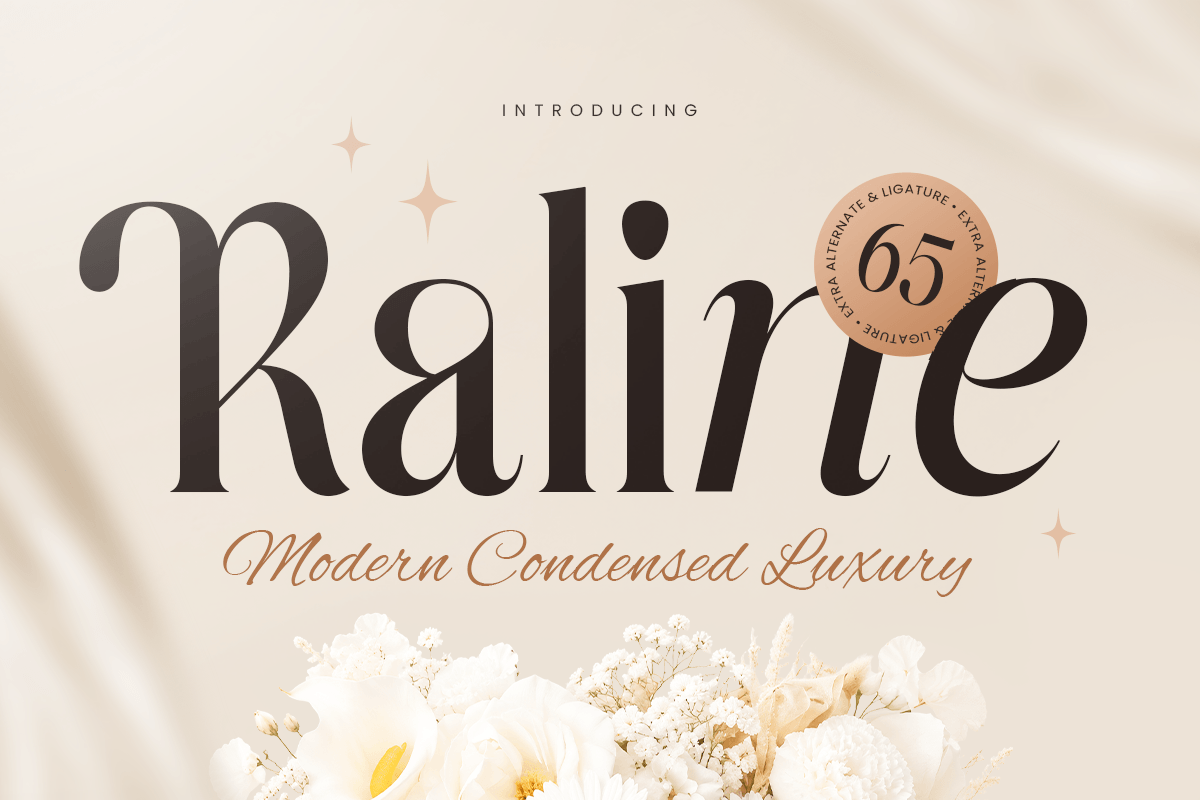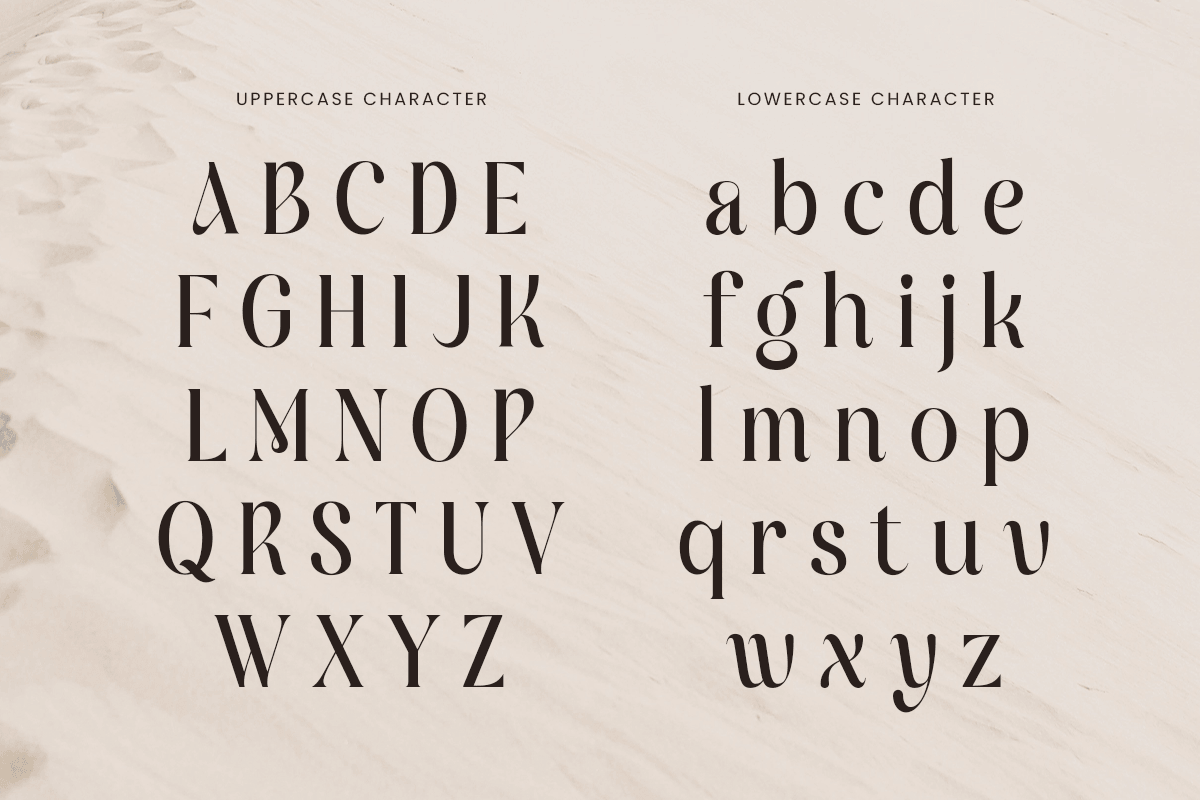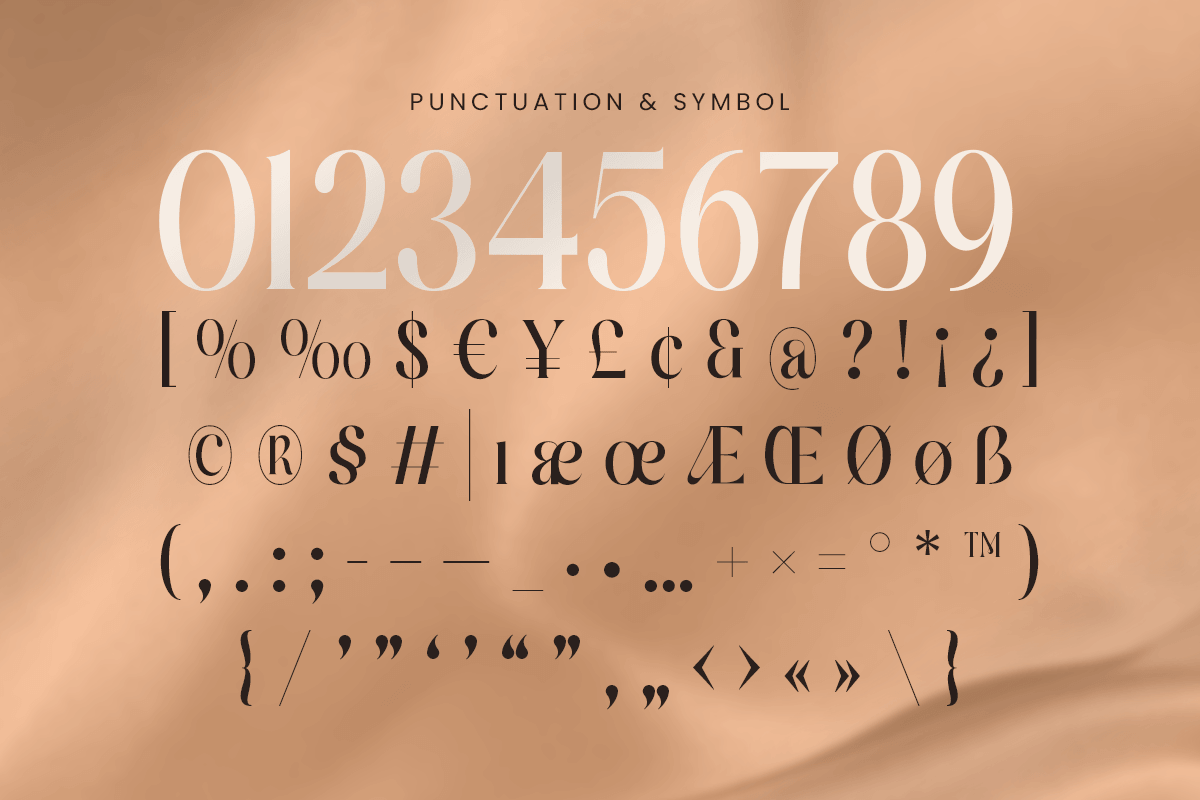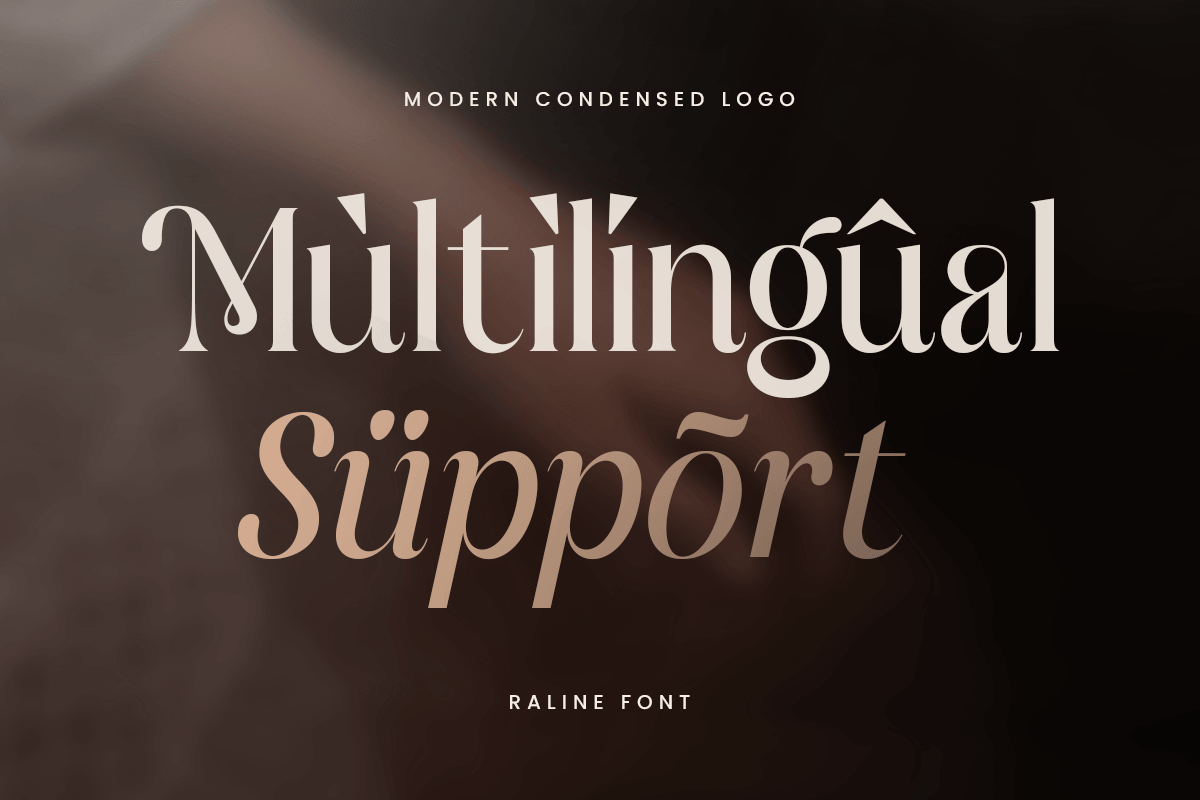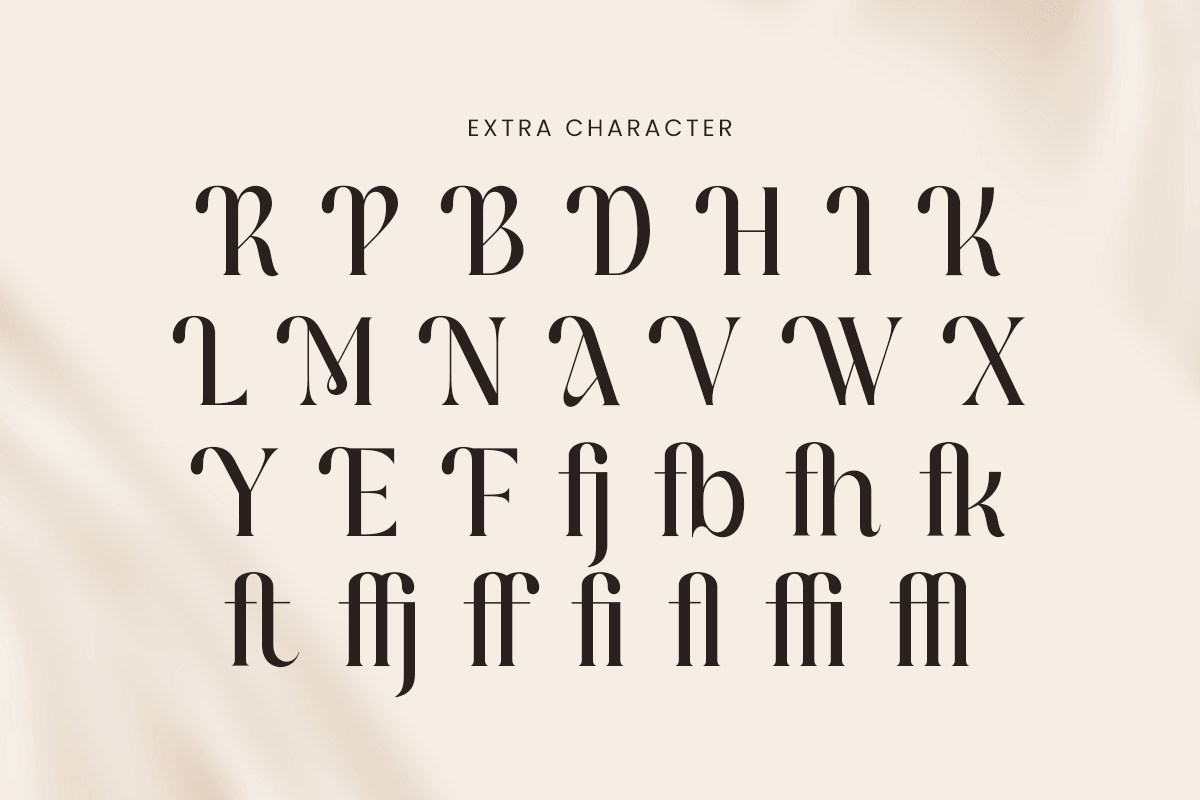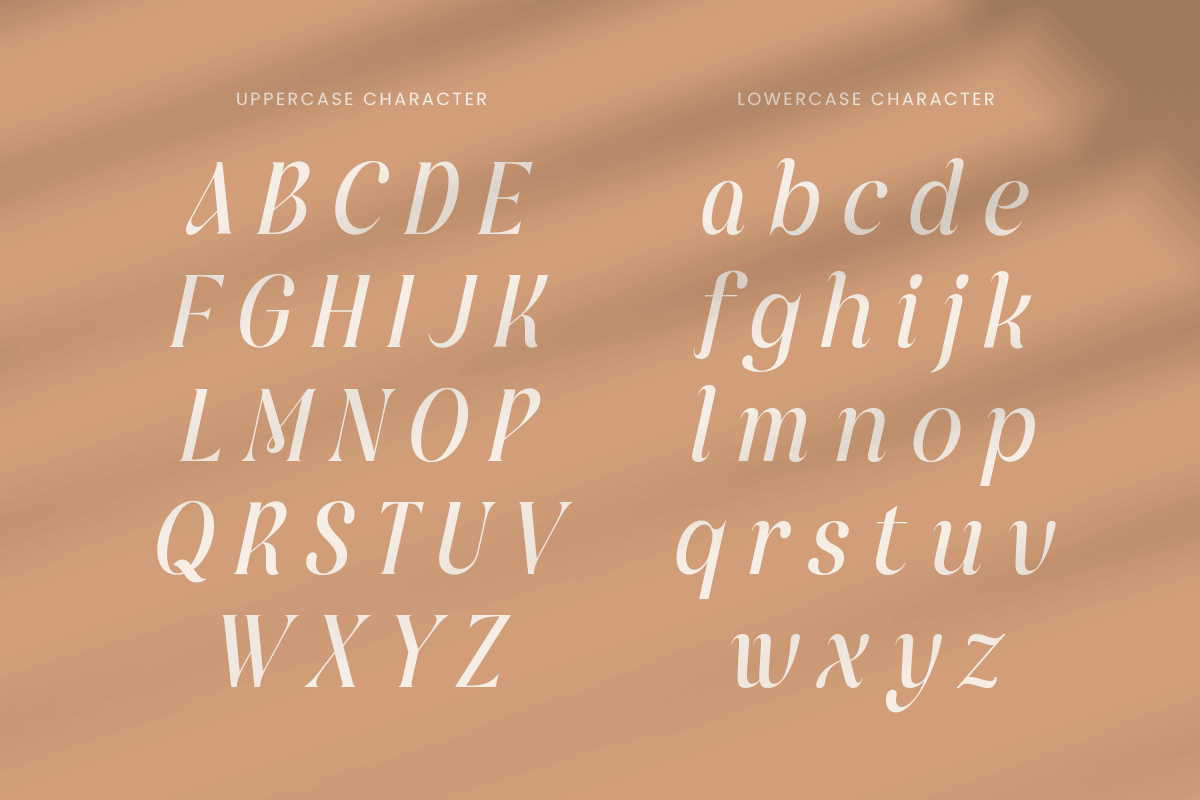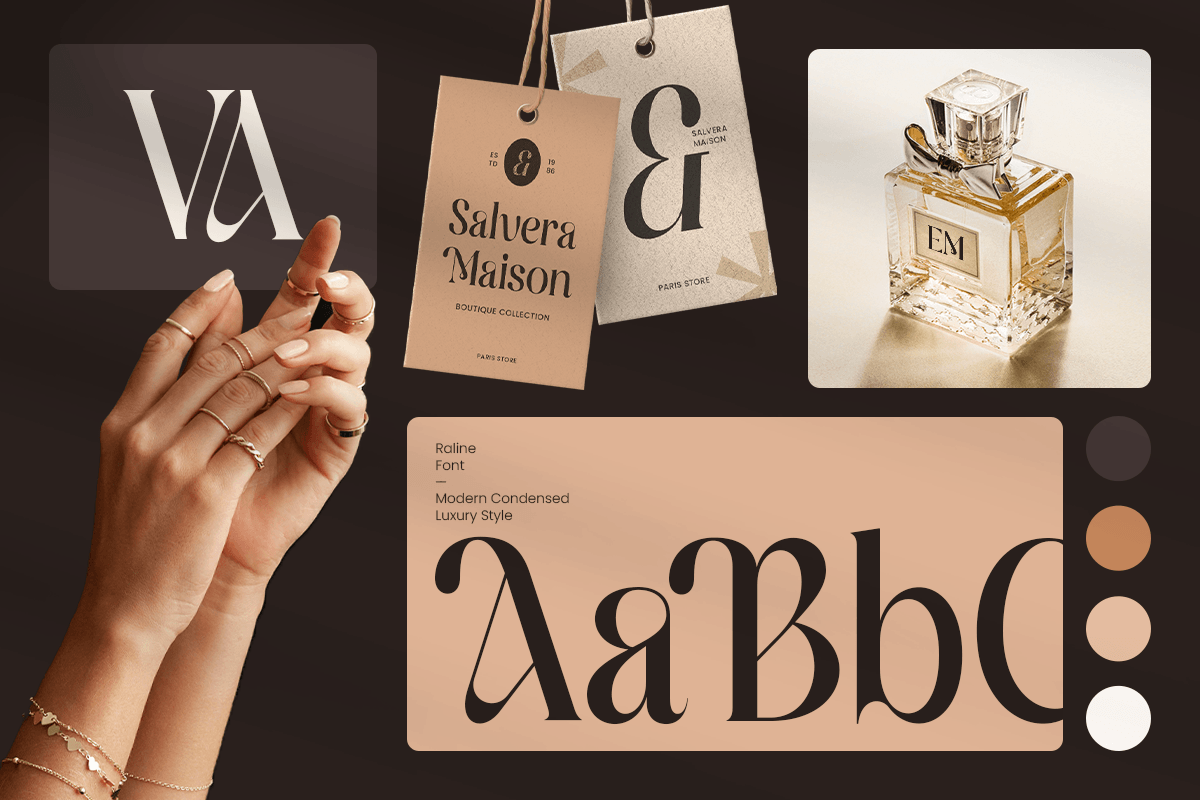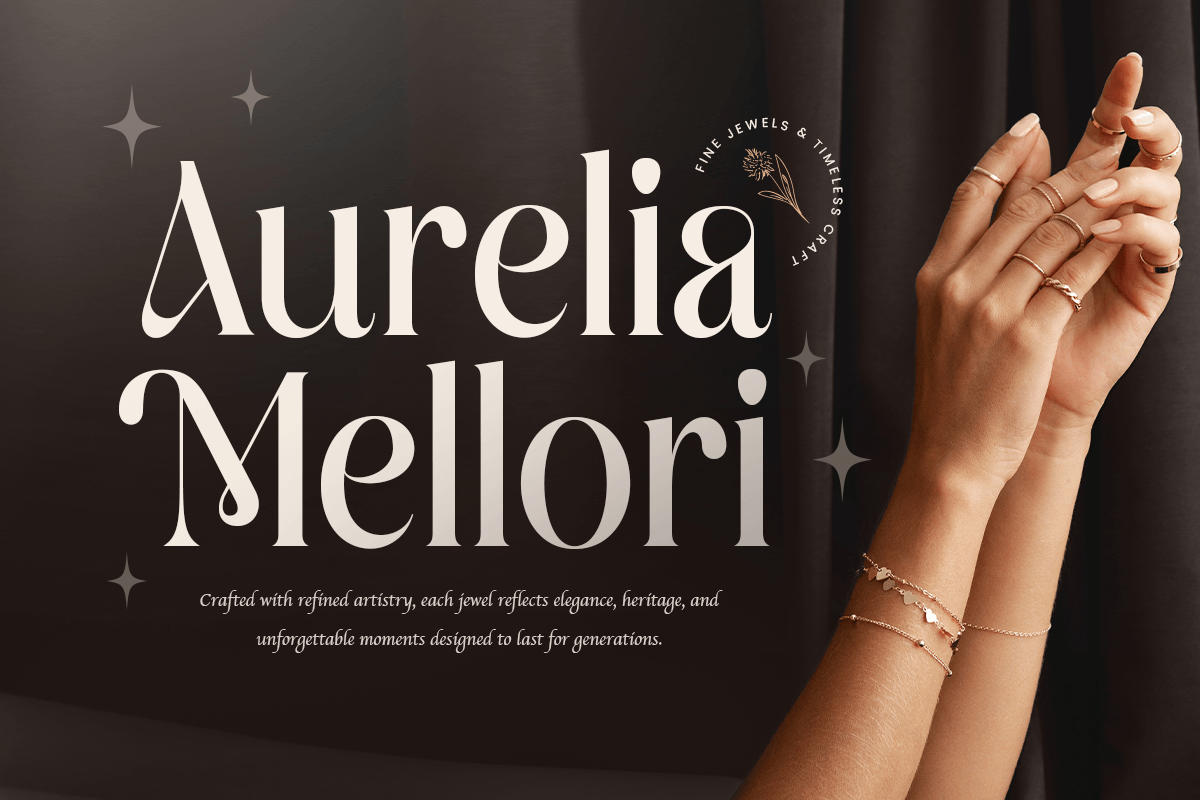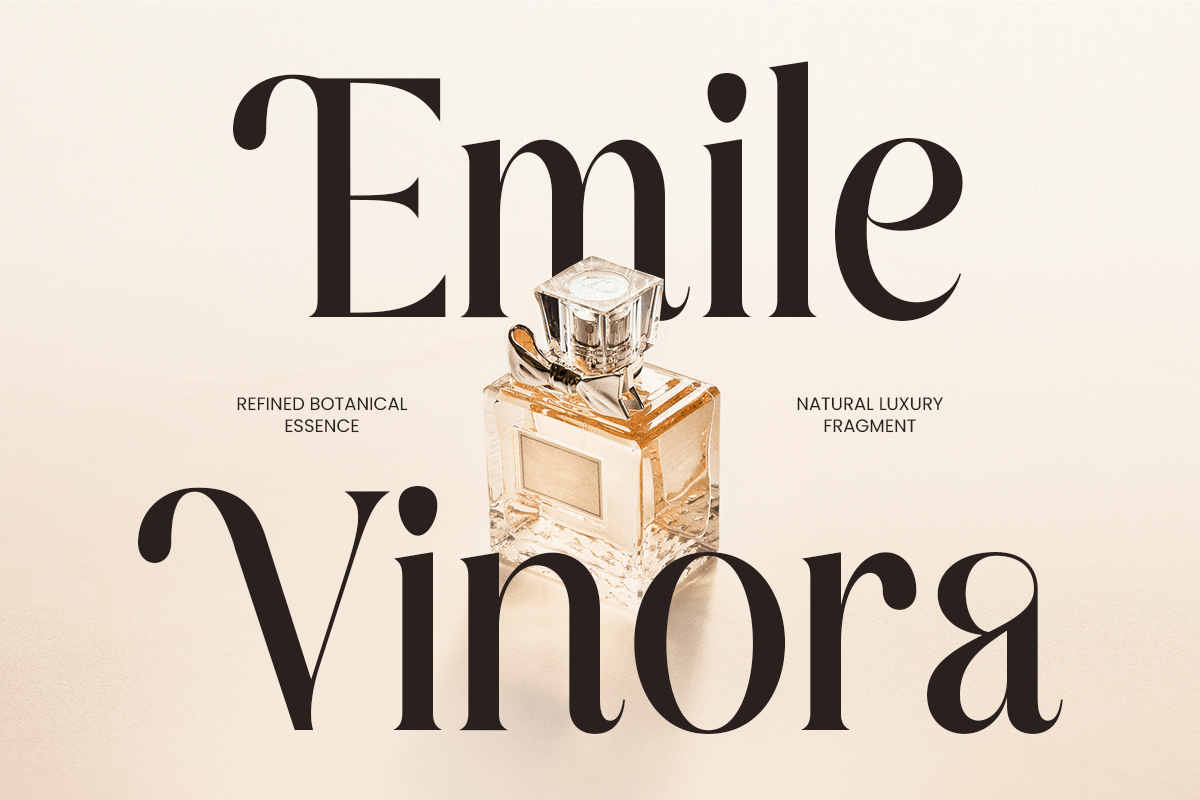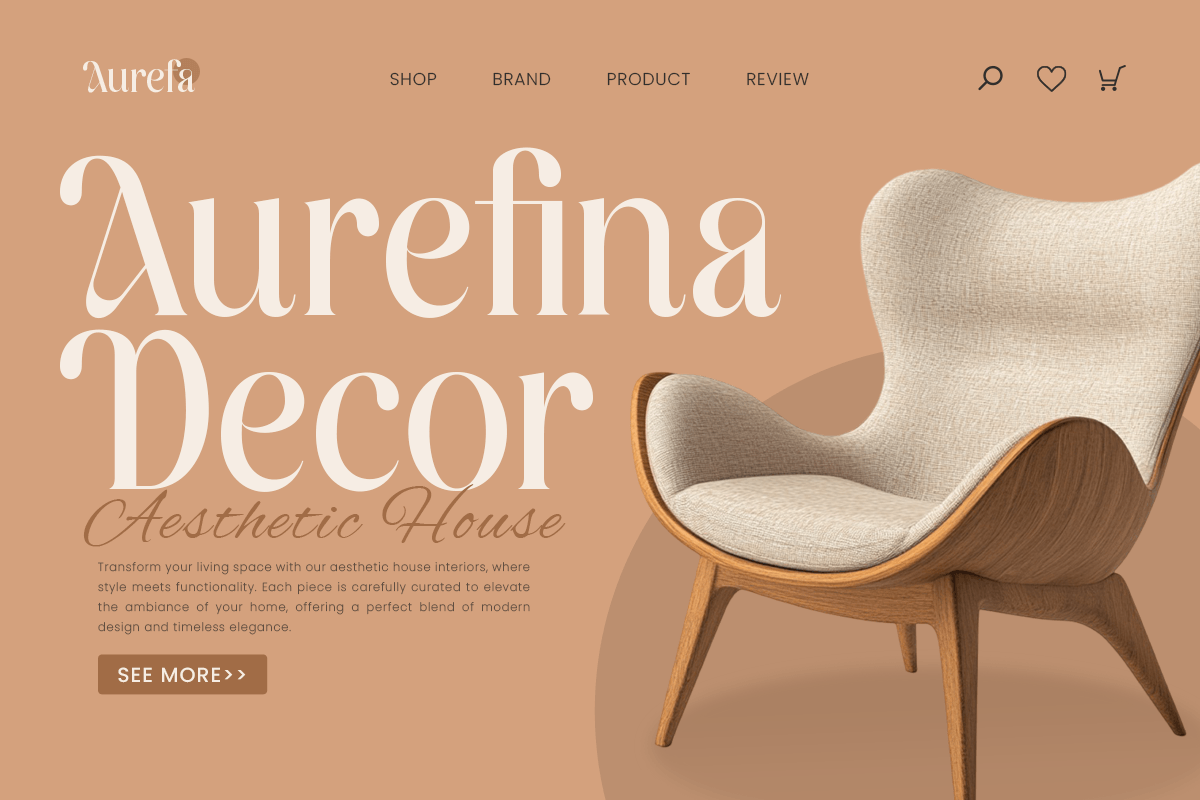
Raline – Modern Condensed Luxury Font
Raline is a modern condensed luxury font created with refined proportions, sophisticated details, and a confident high-end personality. Its narrow letterforms bring a sleek, elegant presence to layouts while maintaining a distinctive visual character, making it an excellent choice for designers seeking a modern luxury font with timeless appeal.
Perfect for luxury branding, elegant logos, fashion identity, beauty packaging, perfume labels, editorial headlines, magazine covers, wedding stationery, and premium advertising, Raline delivers a polished aesthetic across both digital and print projects. Its condensed structure is especially effective for striking headlines, sophisticated wordmarks, posters, signage, and social media graphics.
Whether used for a premium fashion label, boutique identity, upscale packaging, or contemporary editorial design, this modern condensed luxury font creates a strong balance between exclusivity and modern sophistication. Raline gives designers a versatile typographic solution for logos, brand identity, packaging, poster design, headlines, UI design, social media, and refined print applications.
Raline – Modern Condensed Luxury Features
- Elegant condensed letterforms with a premium appearance
- Refined modern style for sophisticated visual identities
- Ideal for luxury logos, fashion, beauty, and editorial design
- Perfect for packaging, posters, headlines, and signage
- Includes uppercase, lowercase, numerals, and punctuation
- OpenType features for creative typographic flexibility
- Suitable for professional digital and print projects
Multilingual Support